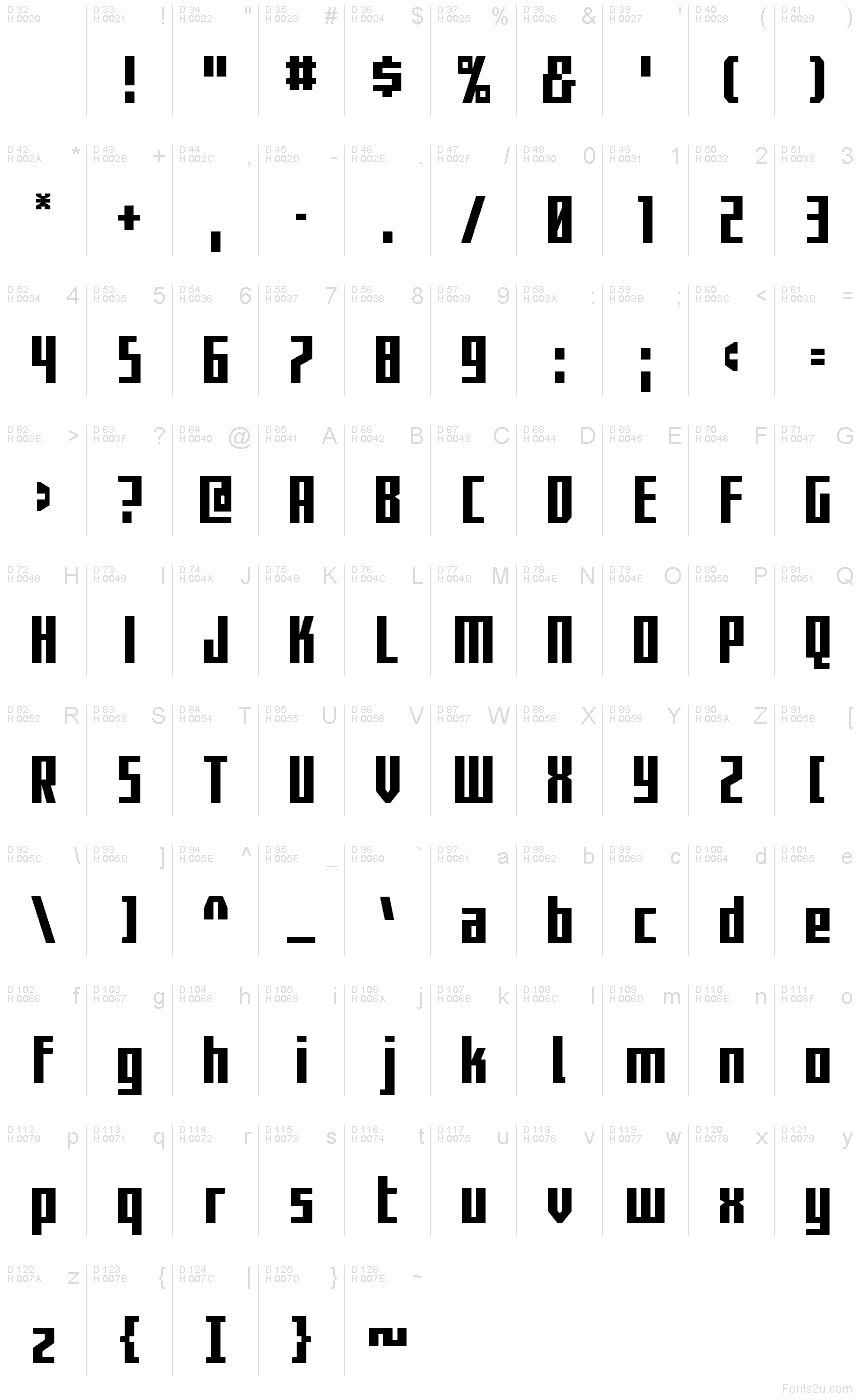
Capitol City Condensed Straigh
Capitol City Condensed Straight font by Iconian Fonts is a free techno display font with a minimalist and futuristic appearance. Its geometric and structured shapes create a clean, modern look with on-focus clarity. Additionally, its condensed character makes it all the more easier to fit more input into smaller spaces without compromising style.
Perfect for tattoos, rock music branding, album covers or posters, T-shirts and other fashion items. Use it in logo design for exquisite brands, event invitations (specific theme), signage or way-finding designs plus more.